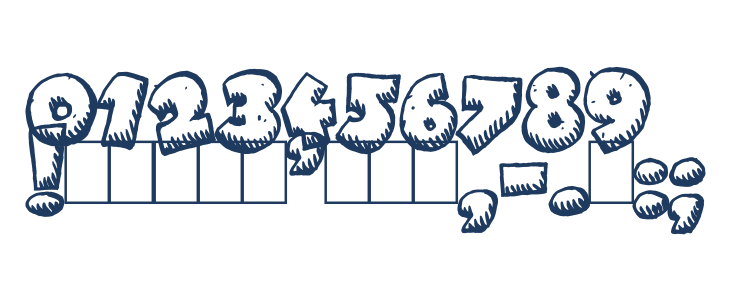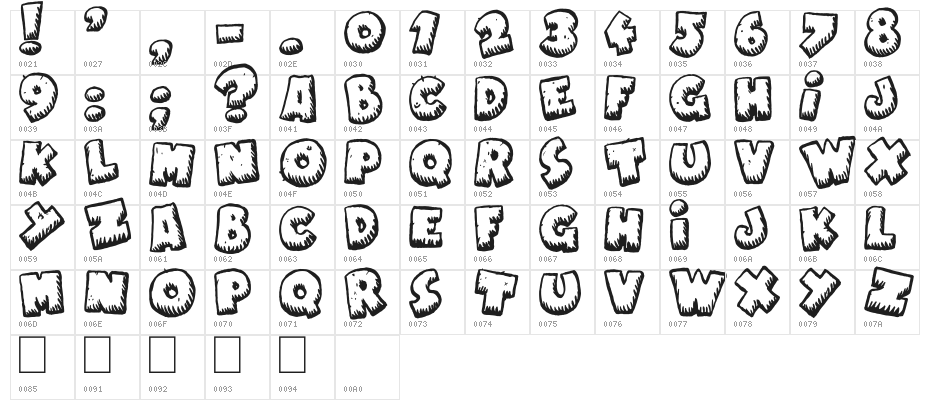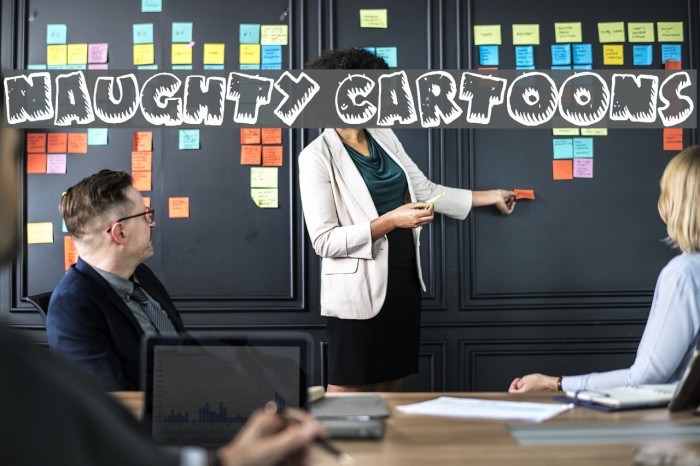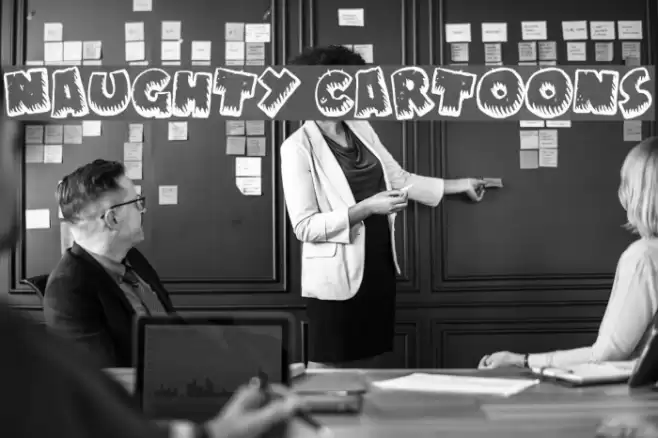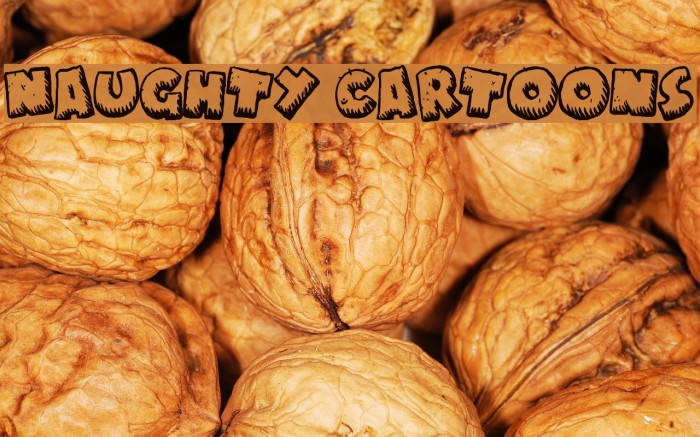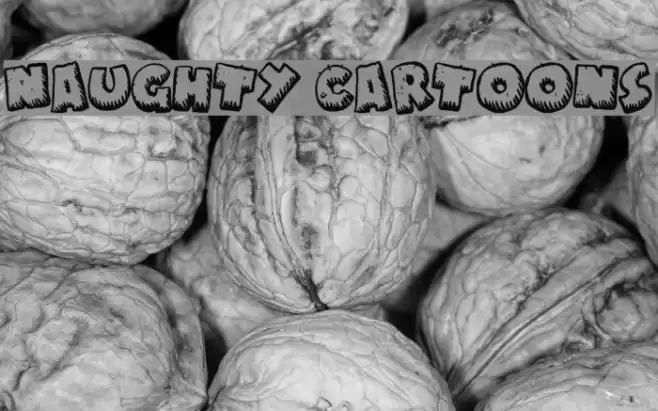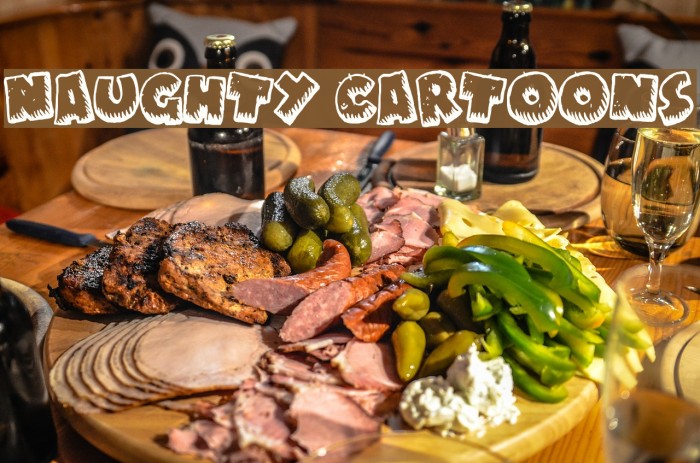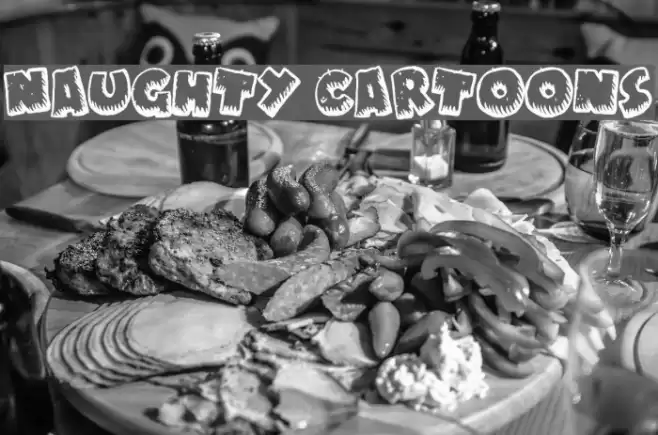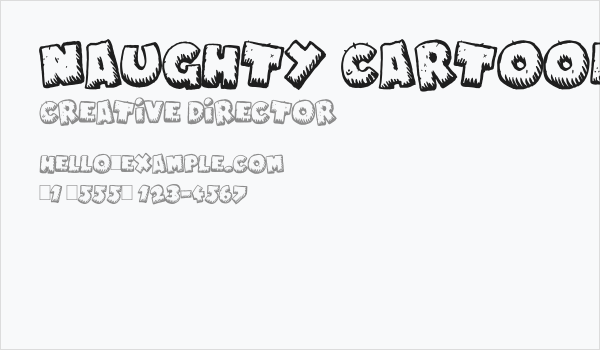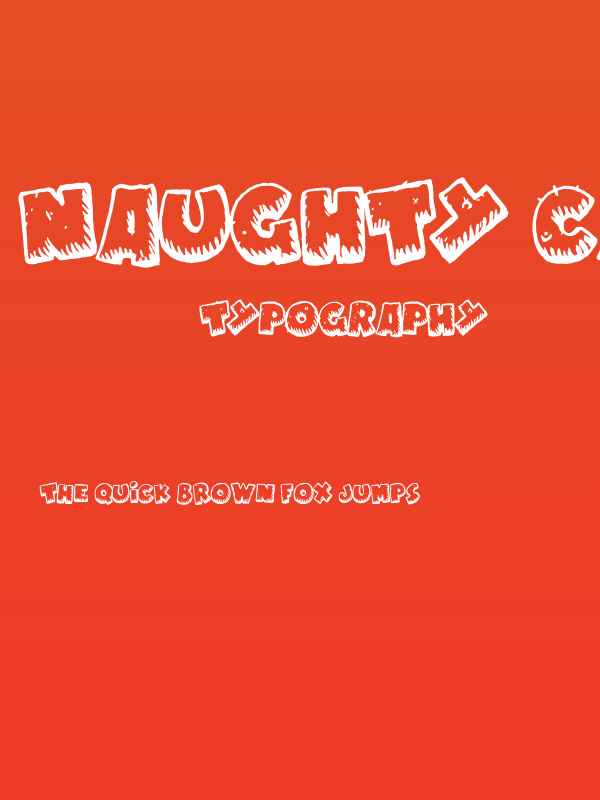
Naughty Cartoons Font
Naughty Cartoons Description
This playful and bold font features a cartoonish style with exaggerated, rounded edges and a hand-drawn appearance. The letters are thick and uneven, giving a whimsical and energetic feel. The uppercase and lowercase characters maintain a consistent style, with a slightly jagged outline that adds to the playful nature. The numbers and special characters follow the same design, ensuring a cohesive look across all elements. This font is perfect for projects that require a fun and informal touch, such as children's books, comic strips, or playful branding.
Overall StylePlayful, Cartoonish
Proposed ProjectsIdeal for children's books, comic strips, playful branding, and informal posters.